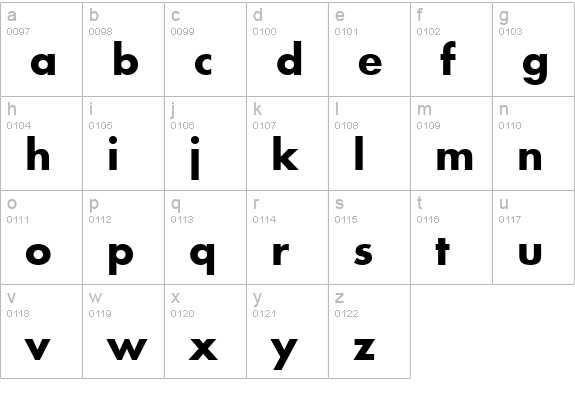
Kudos SSi Bold is a strong, high-contrast variant in the Kudos typeface family \xE2\x80\x94 well suited to headlines, attention-grabbing titles, and strong calls-to-action.
Kudos SSi Bold is a modern and stylish font that exudes confidence and sophistication. Its bold and striking design makes it perfect for headlines, titles, and other attention-grabbing text. With its clean lines and strong presence, Kudos SSi Bold is sure to make a statement in any design project. The best part? Kudos SSi Bold is available for free download at FontsMarket.com. This means you can easily access this high-quality font and use it in your projects without any cost. Whether you're working on a professional presentation, a creative poster, or a sleek website, Kudos SSi Bold will elevate your design with its bold and impactful appearance. Don't miss out on the opportunity to enhance your designs with the bold and modern style of Kudos SSi Bold. Download it for free today at FontsMarket.com and take your projects to the next level!